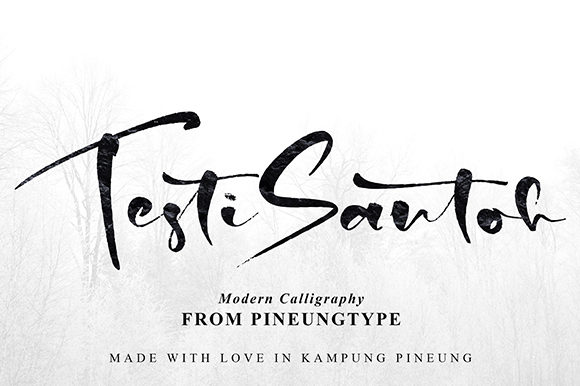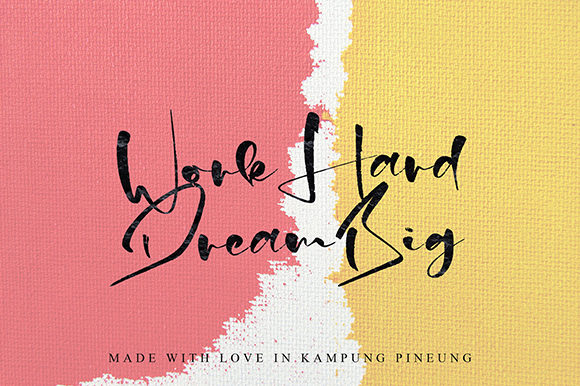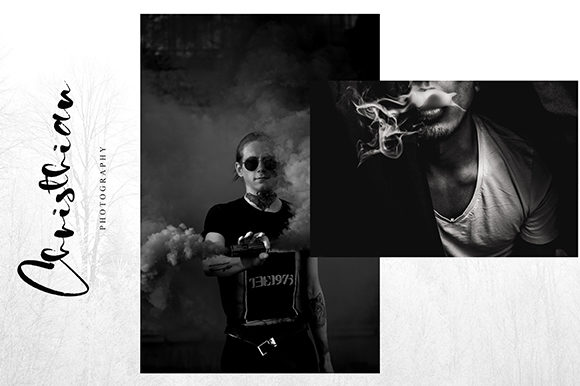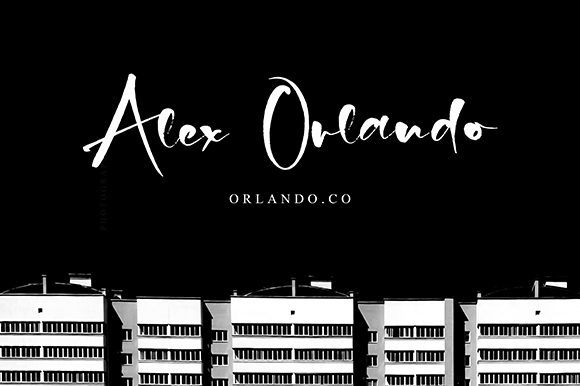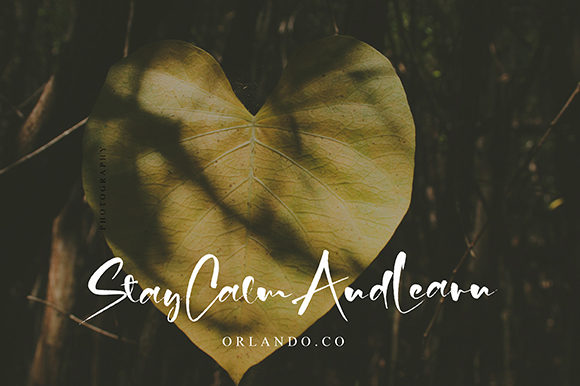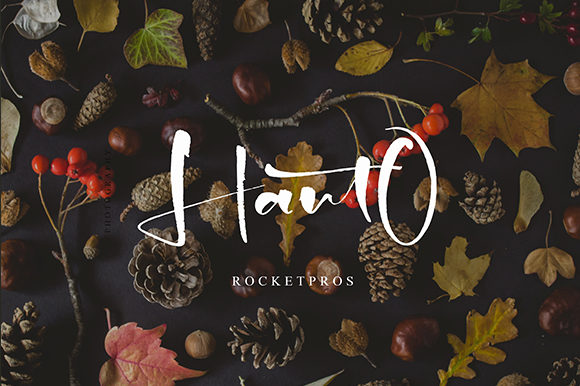
Testo Santoh Font
About Testo Santoh Font
Testo Santoh is a playful and unique script with a dynamic feel. Use it to turn any design concept into an eye-catcher!